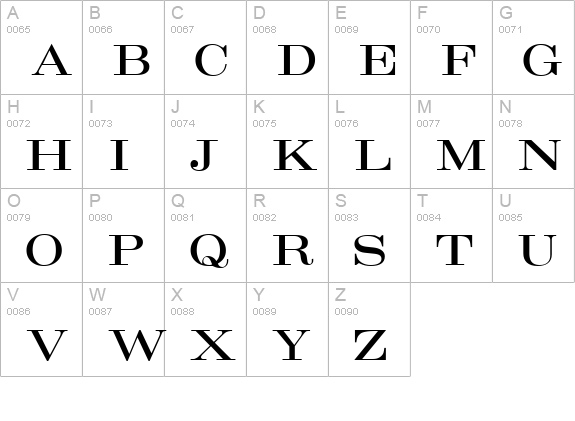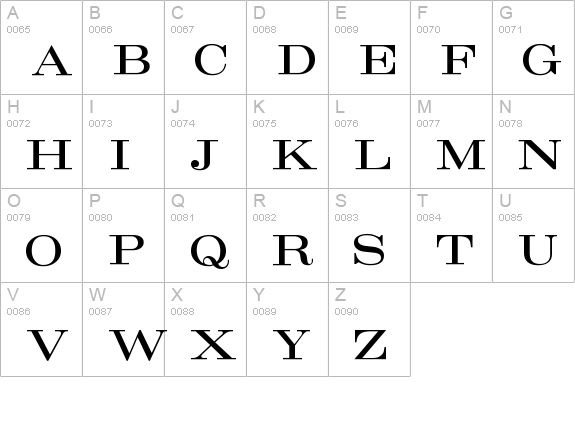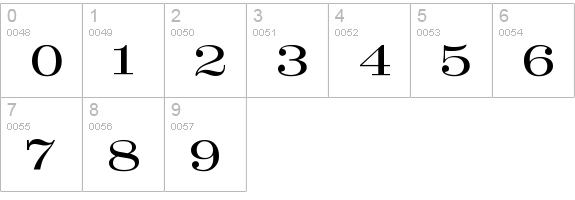
Craw Regular Font Details
Craw Regular is the standard, neutral variant in the Craw typeface family \xE2\x80\x94 well suited to general body text, paragraphs, and standard typographic work.
Craw Regular font is a modern and stylish typeface perfect for a wide range of design projects. With its clean lines and sleek appearance, Craw Regular adds a touch of sophistication to any design. Its versatility makes it suitable for various applications such as logos, branding, posters, and more. What makes Craw Regular even more appealing is that it is available for free download at FontsMarket.com. This means you can easily access this high-quality font without any cost, making it a valuable addition to your font library. Don't miss out on the opportunity to enhance your designs with this elegant and versatile font for free. Download Craw Regular today and elevate your design projects to the next level.